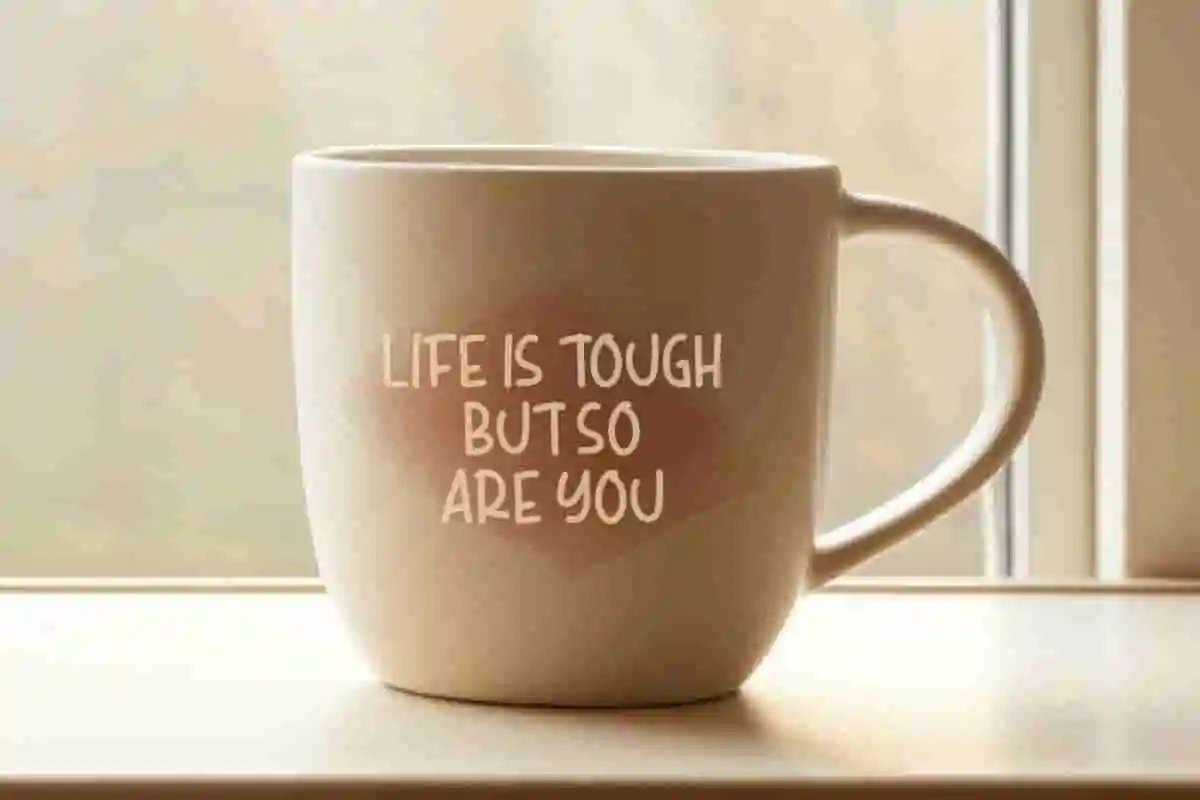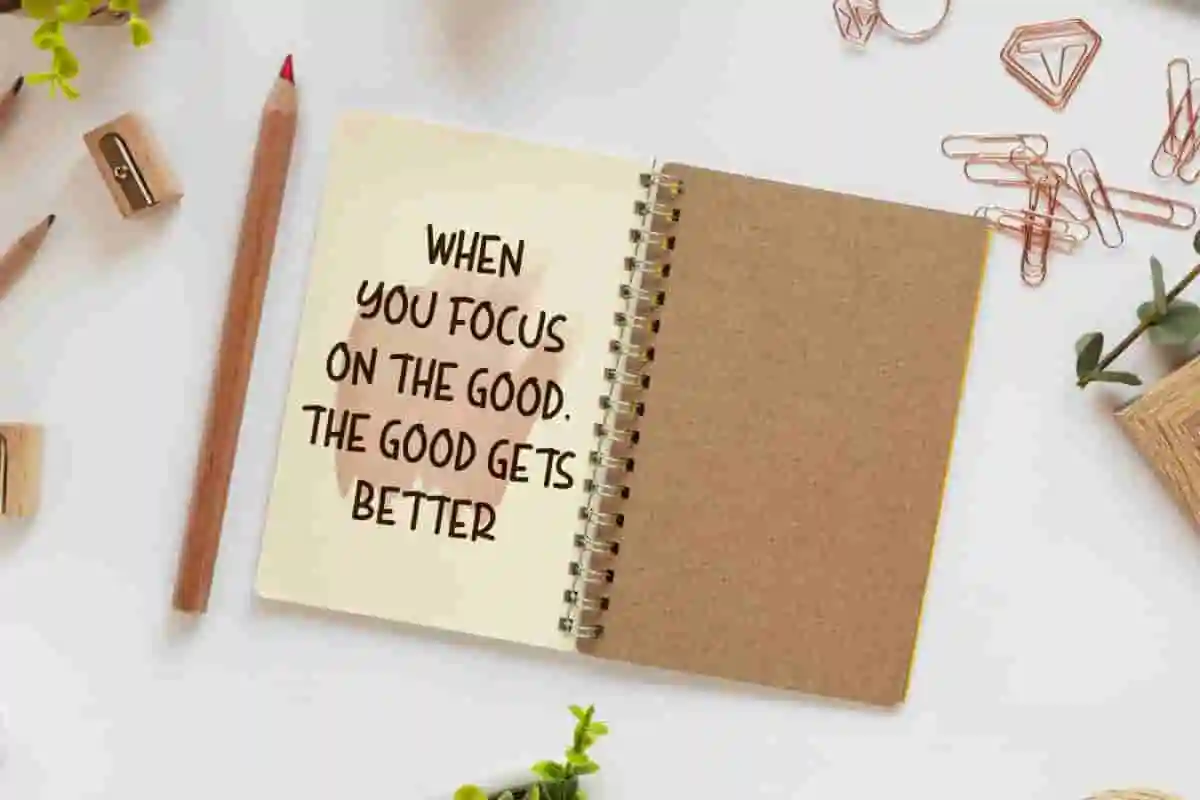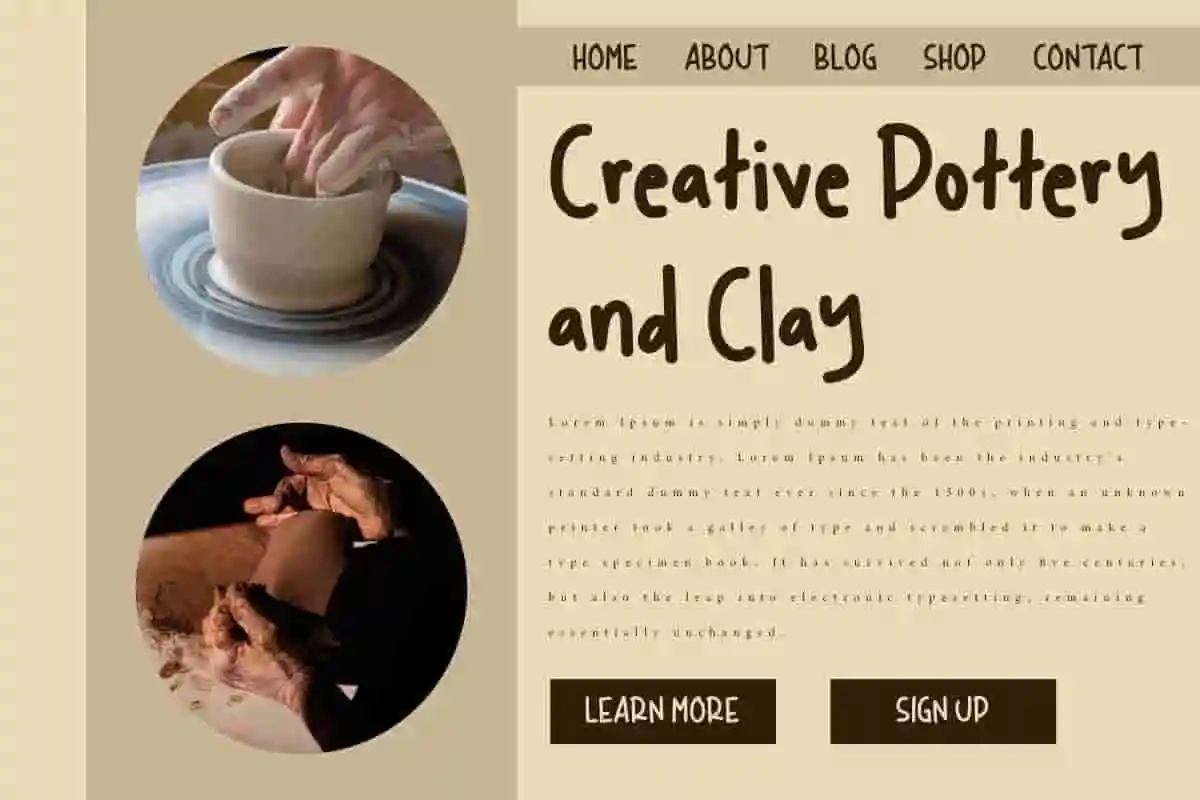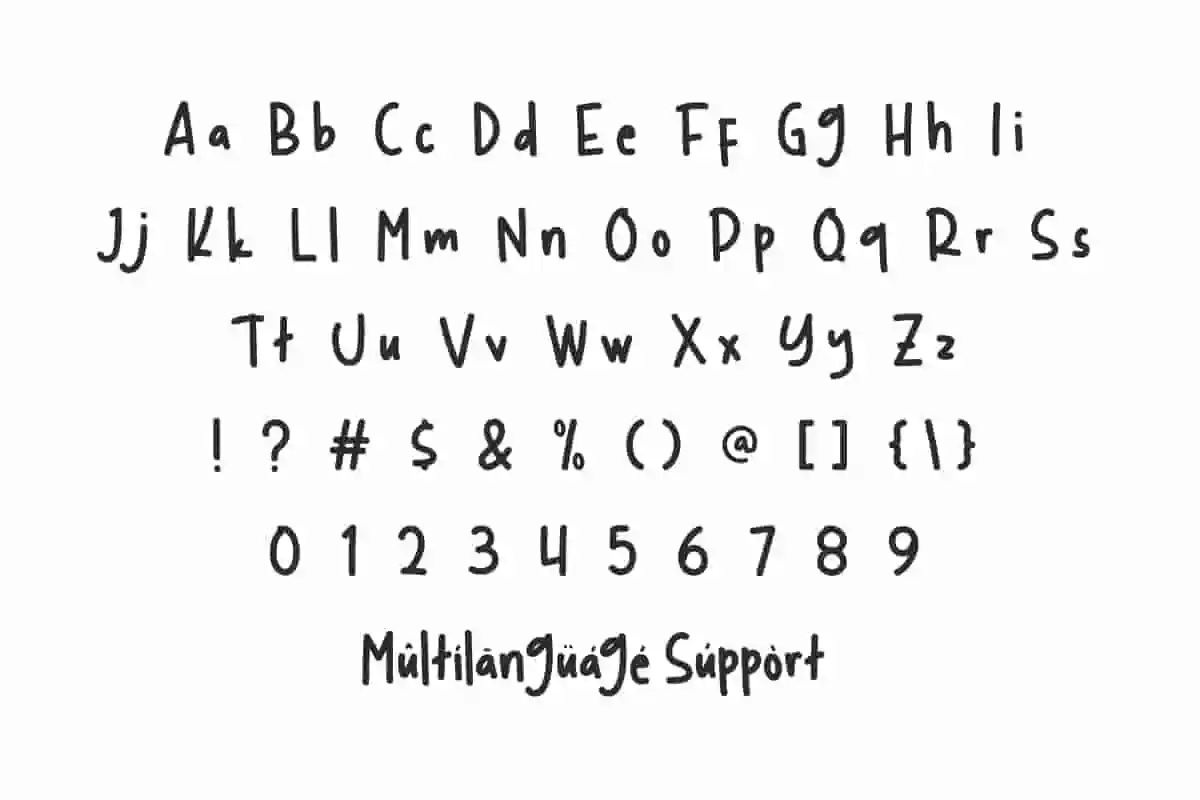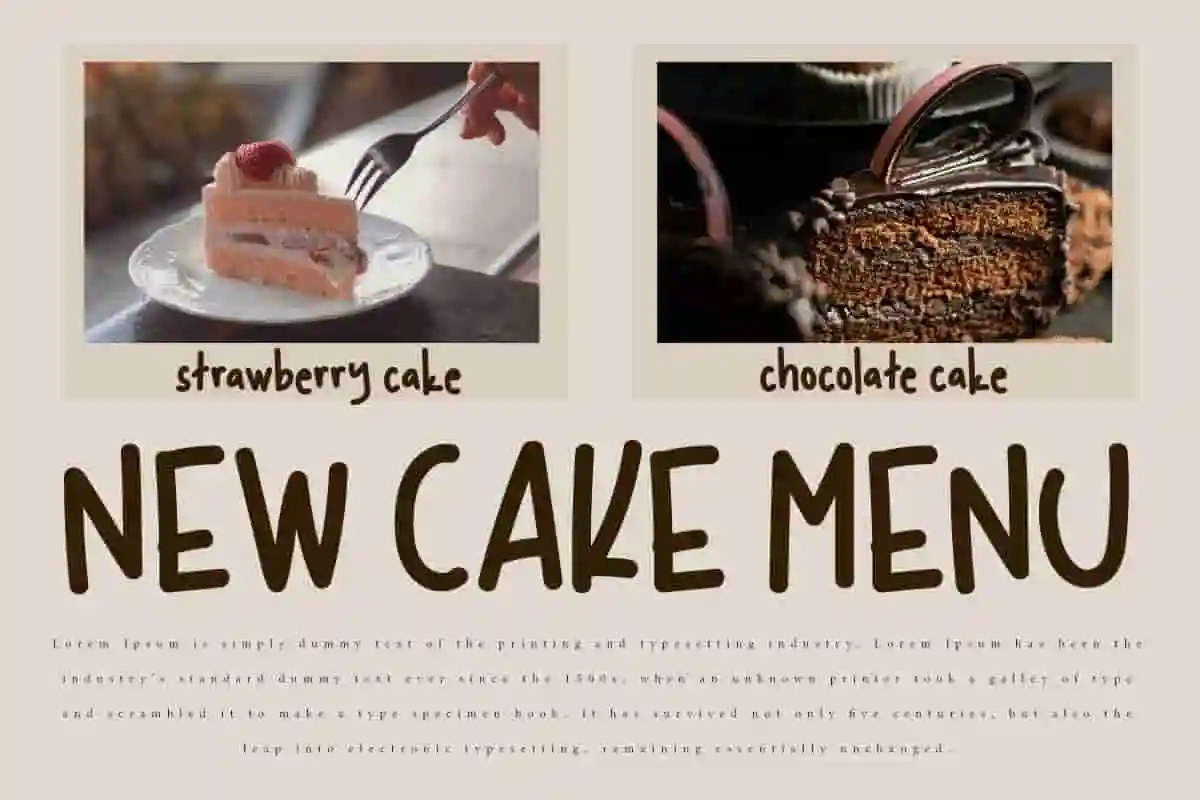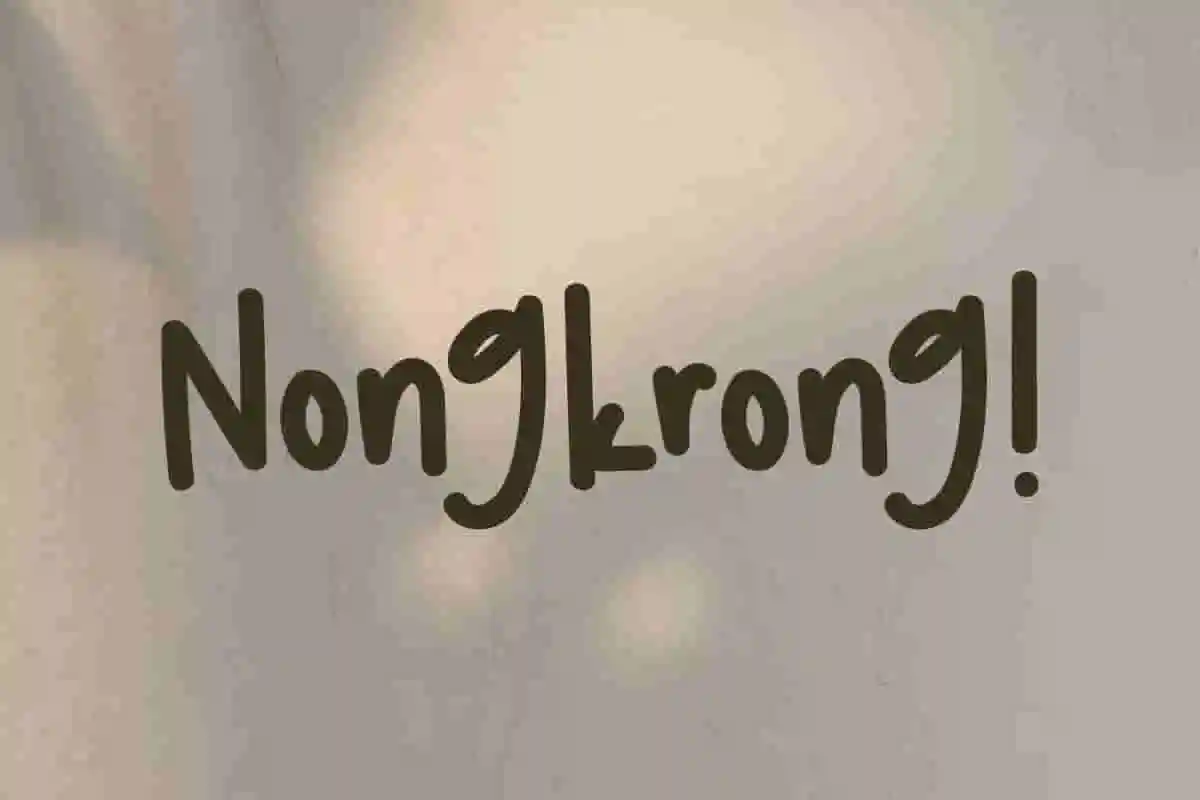
Nongkrong Font is a casual handwritten font with a happiness look! This font will look amazing and is suitable for illustrations, menu, mugs, quotes, web, etc.
Nongkrong Font is a cheerful marker font with emphasis on each letter to give it a fun bold look. Make it into short or long text or even as a secondary text font it will be great. Create stunning masterpieces with this font. Perfect for blog, brochure, flyer, heading, menu, mockup, poster, printed materials, sticker, template, title, website, and much more.
Nongkrong Font includes a complete set of Basic Uppercase and Lowercase Characters, Numbers, Punctuation Marks and Symbols. You can combine upper and lower case letters until you achieve the desired unique look, making it look like you wrote it yourself, so it looks like natural handwriting. Perfect for author, bakery, cafe, graphic design, handicraft, homeware, movie, pastry chef, pottery, restaurant, signboard, stationary shop, web designer, and much more.